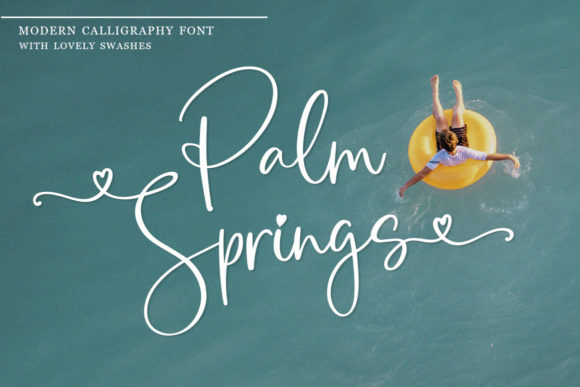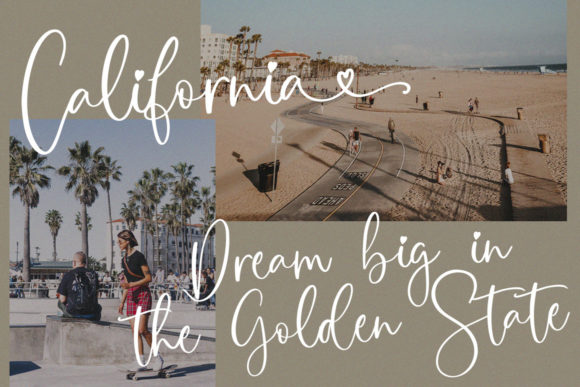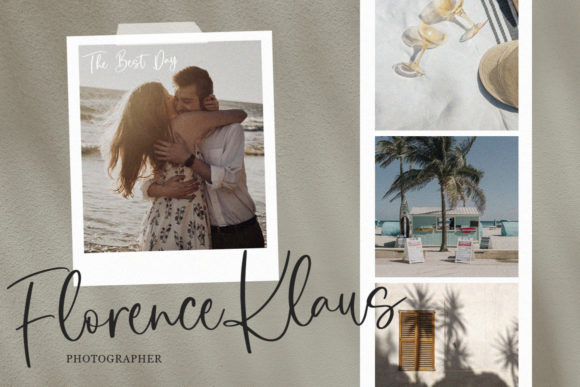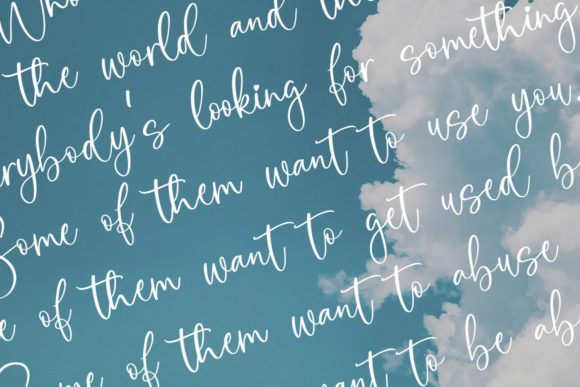
Palm Springs Font
About the Palm Springs Font
Explore the possibilities with Palm Springs Font, a font that offers both beauty and functionality. Palm Springs is a romantic and modern calligraphy typeface with characters that dance along the baseline. It has a casual, yet elegant touch. It is the best choice for creating eye-catching logos, branding, and quotes. This font will add a luxury spark to any design project that you wish to create!
Palm Springs excels in applications requiring a touch of elegance and playfulness, such as logos, short headlines, and invitations. Its expressive nature makes it ideal for branding projects targeting a sophisticated yet approachable audience, particularly in the fashion, beauty, or lifestyle sectors. Avoid using it for large blocks of body text or UI elements; its calligraphic style is best suited for short, impactful statements.
Pairing Palm Springs effectively requires considering its inherent romanticism. A clean, geometric sans-serif like Montserrat or a subtly modern serif like Playfair Display would provide a strong contrast and enhance readability when used together. For a more whimsical feel, a delicate script font could complement its flowing lines, but ensure sufficient contrast for legibility.
The font’s overall personality is sophisticated yet approachable; it conveys a sense of modern elegance without being overly formal. It’s best suited for brands that value both style and approachability.
Palm Springs Font Usage Examples
Palm Springs Font Example